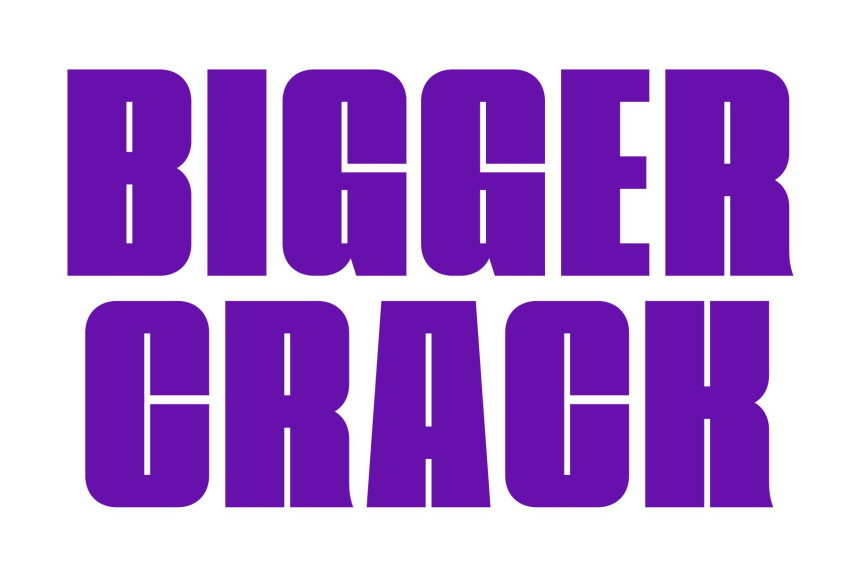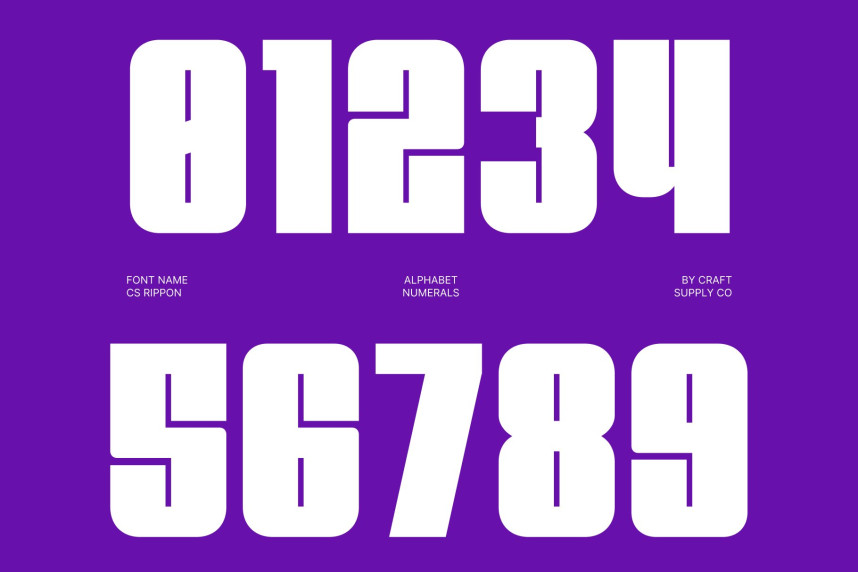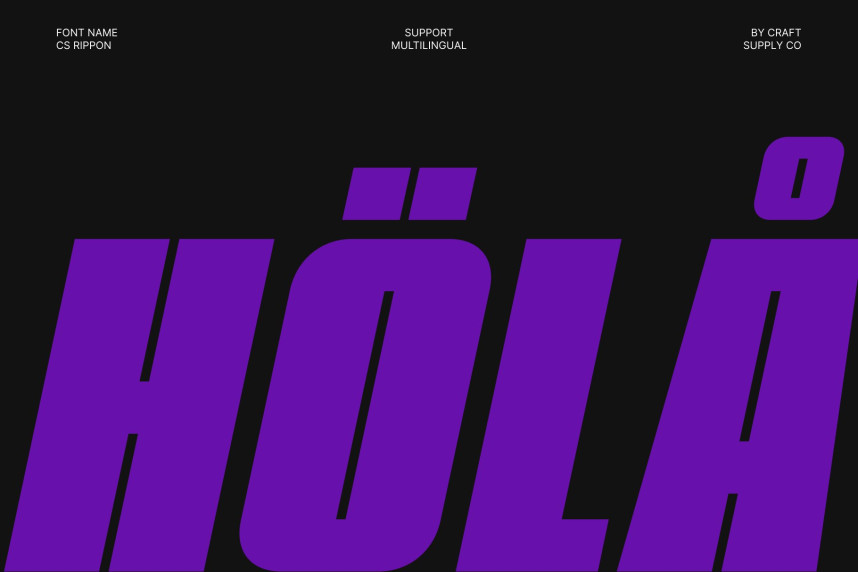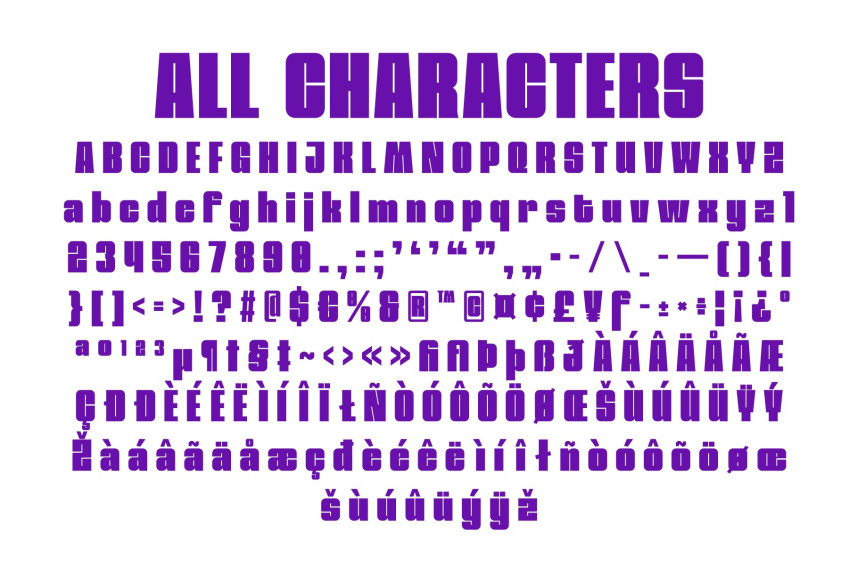
CS Rippon Font
CS Rippon Font – Bold Condensed Display Font: Where Geometric Strength Meets Modern Impact
Thick Geometric Letterforms with Commanding Presence
This is a bold condensed display font featuring thick, geometric letterforms that create a clean, modern, and commanding appearance. Its tall proportions maximize visual impact while maintaining efficient use of space, making every headline bold, confident, and instantly attention-grabbing.